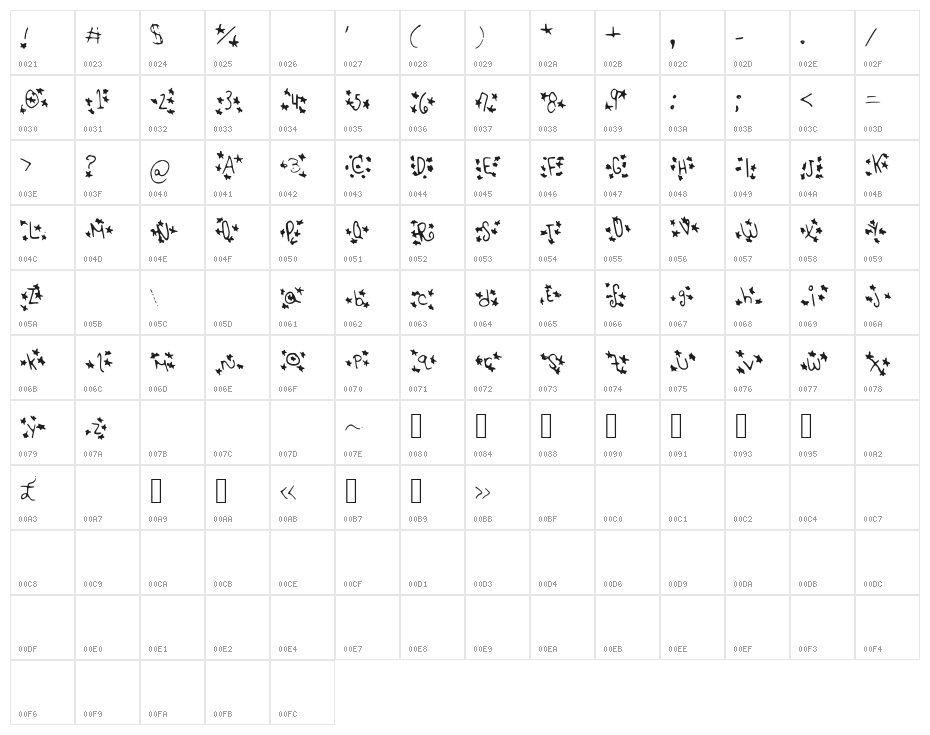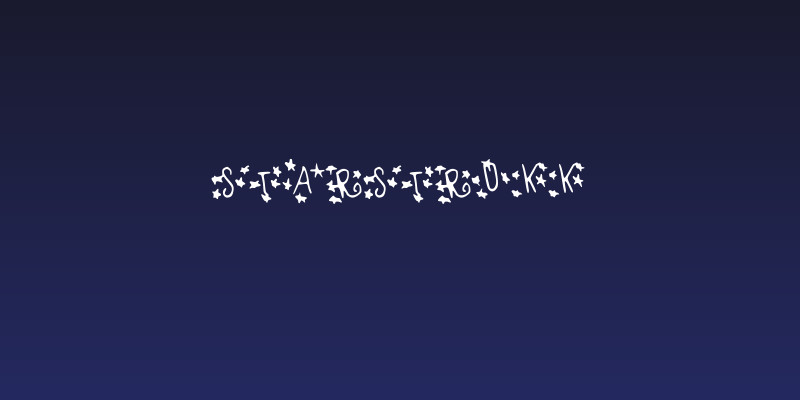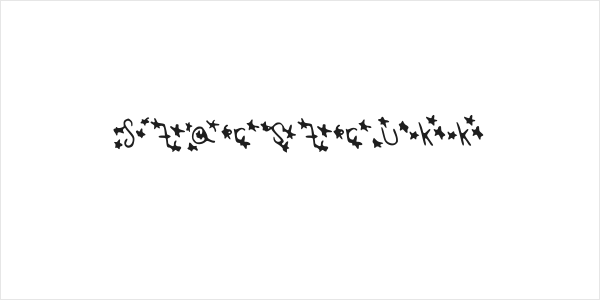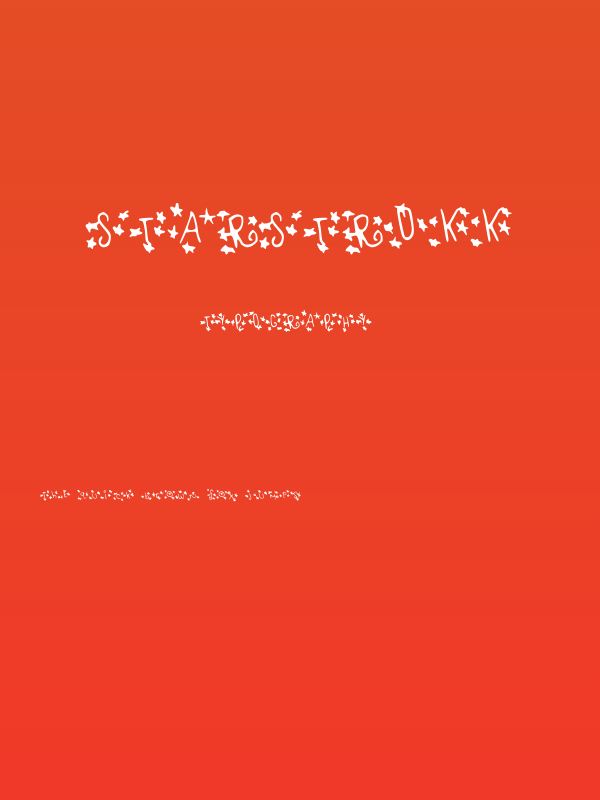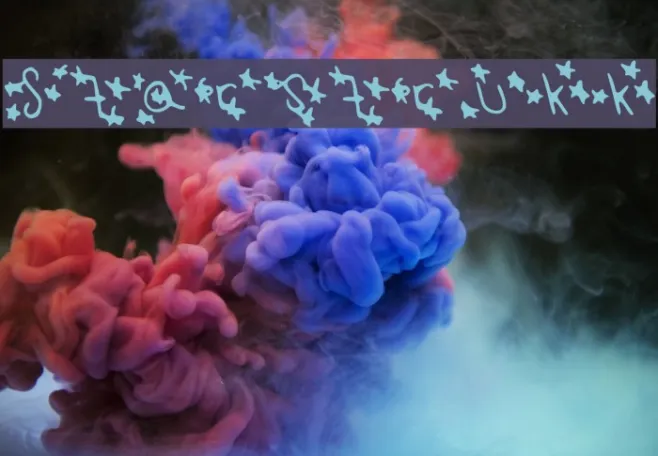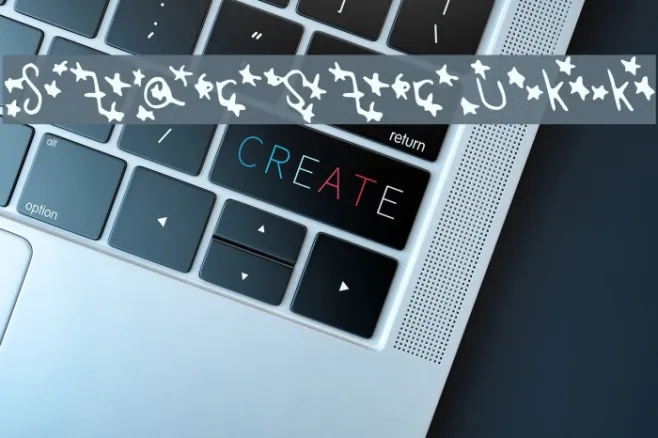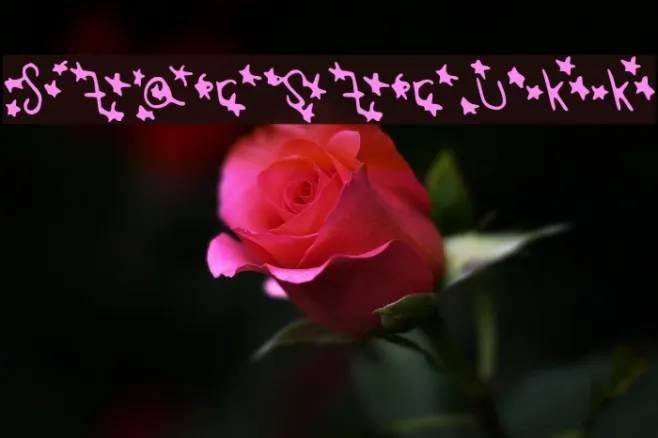
Starstrukk Font
Starstrukk Description
This whimsical and playful font features characters adorned with star shapes, creating a lively and energetic appearance. Each letter and number is surrounded by small stars, giving the font a unique decorative flair. The overall design is bold and eye-catching, making it suitable for creative and fun projects. The font maintains a consistent style across uppercase, lowercase, and numerical characters, with a slightly irregular and hand-drawn feel. The special characters also incorporate star elements, enhancing the cohesive theme throughout the font.
| Proposed Projects | Ideal for children's book covers, party invitations, playful branding, and any project requiring a fun and energetic typeface. |